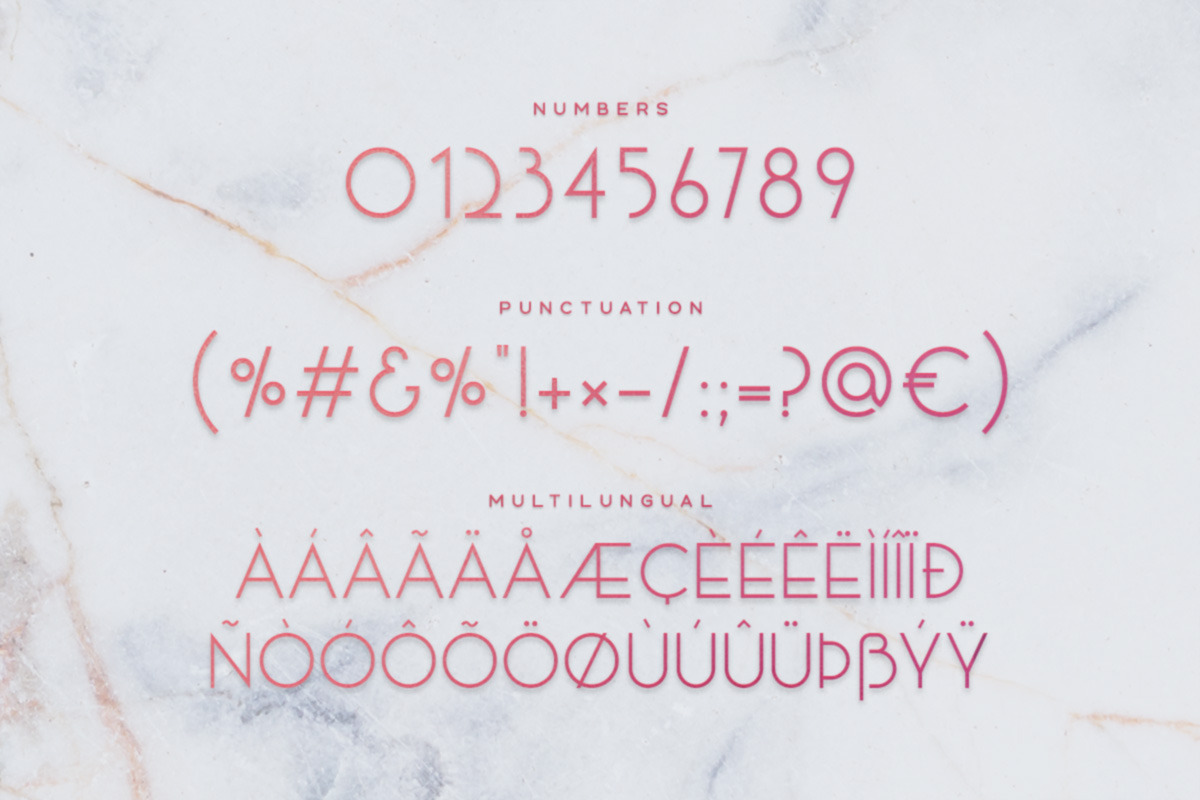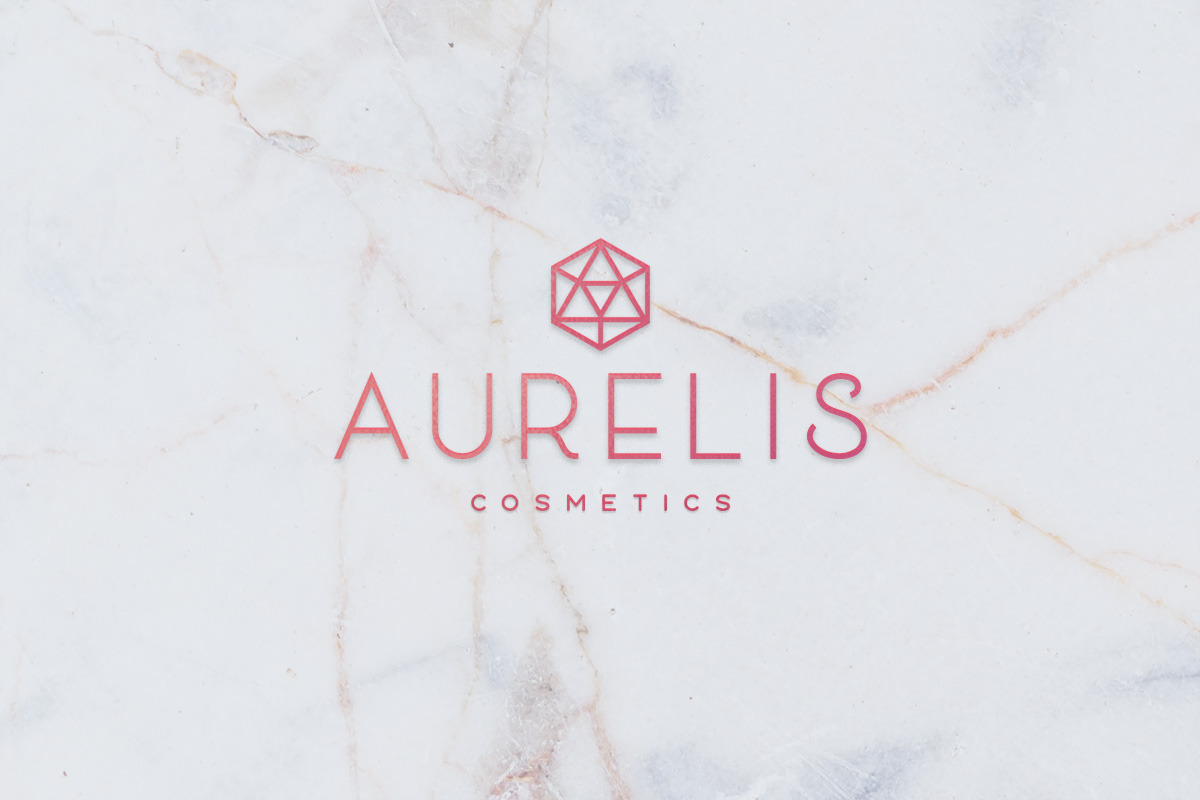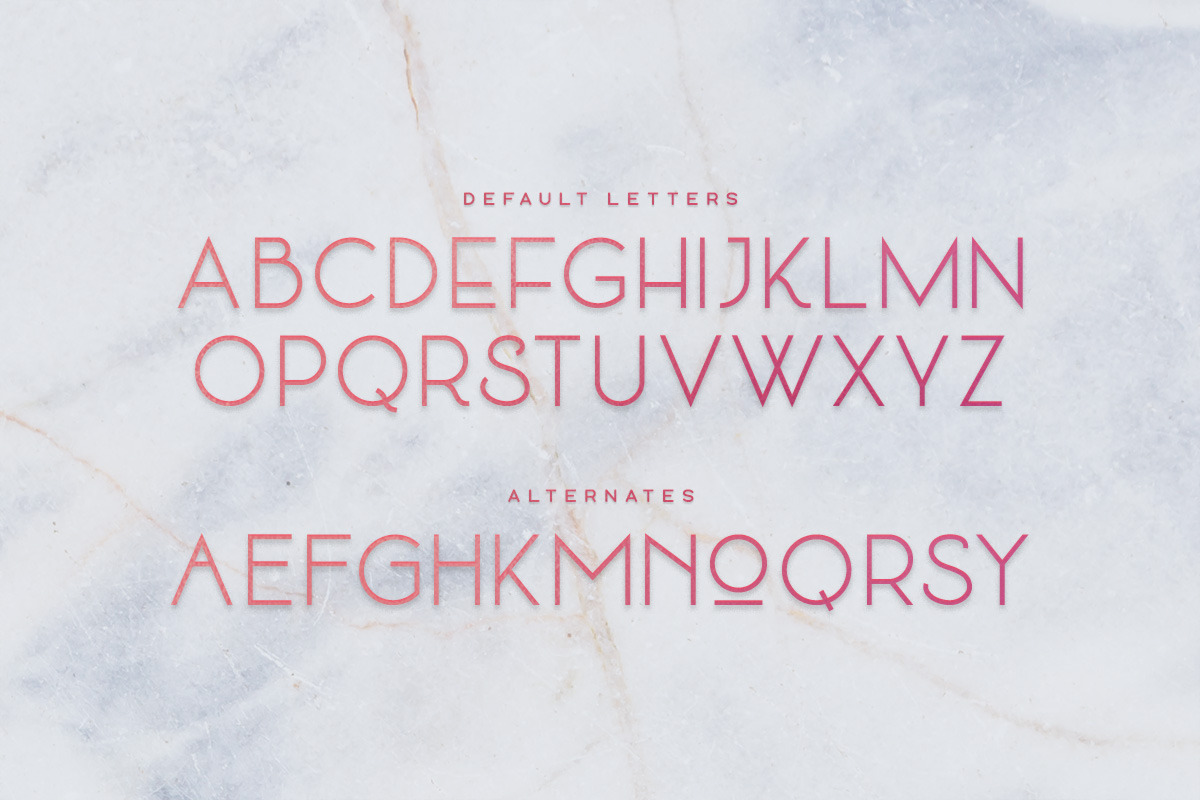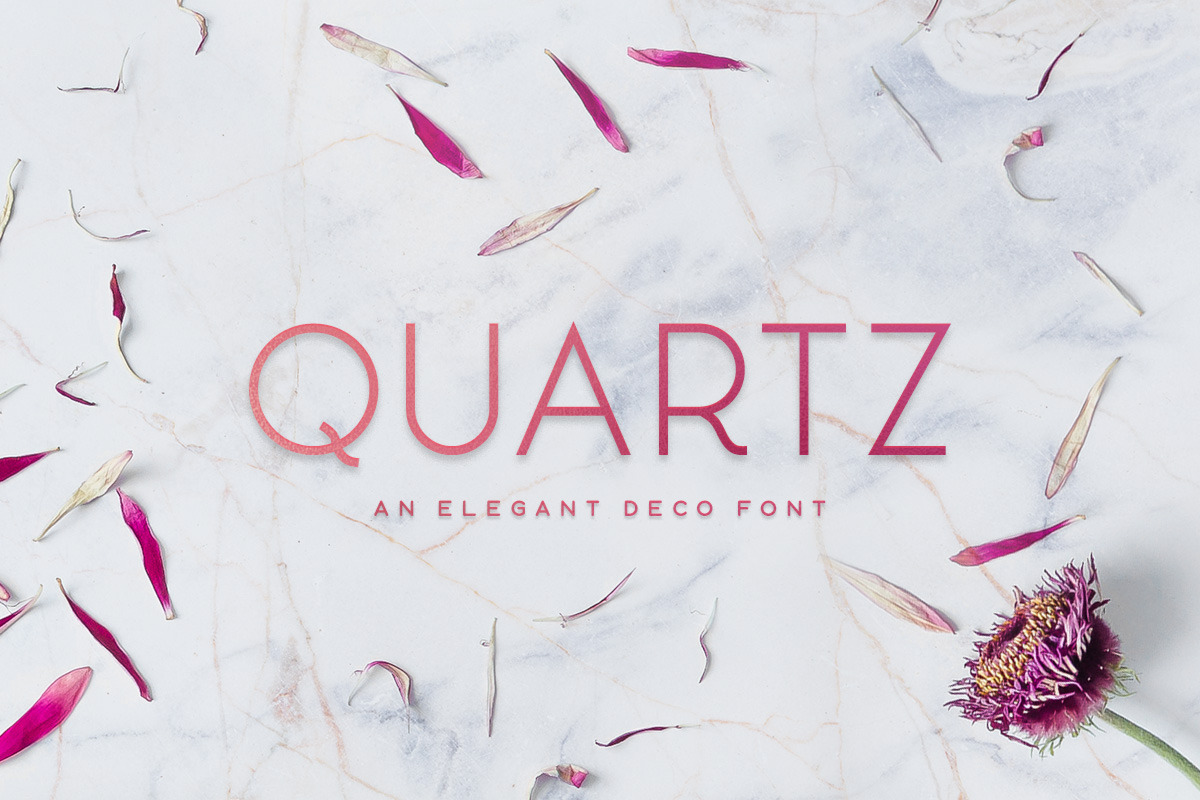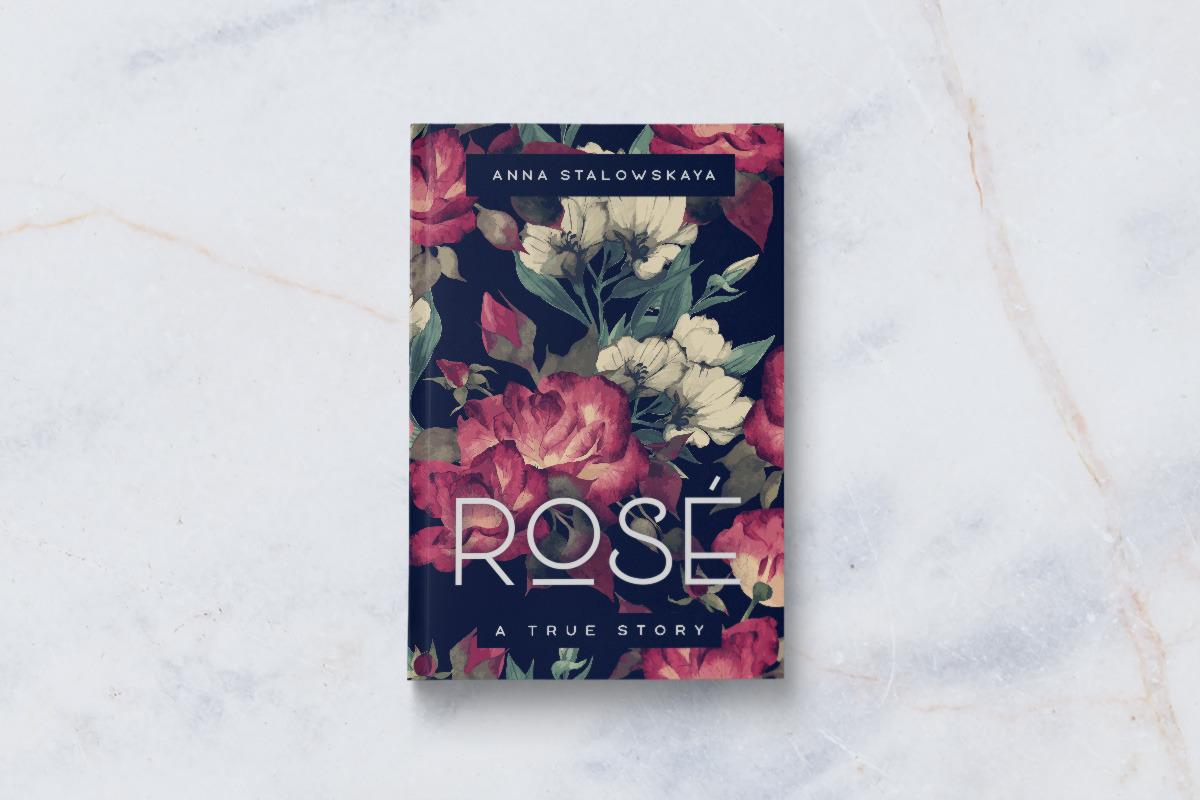
Quartz - Deco Font
Quartz is an elegant art deco font with alternate letters. It includes uppercase multilingual letters, numbers and punctuation. The download also includes two rose gold textures.